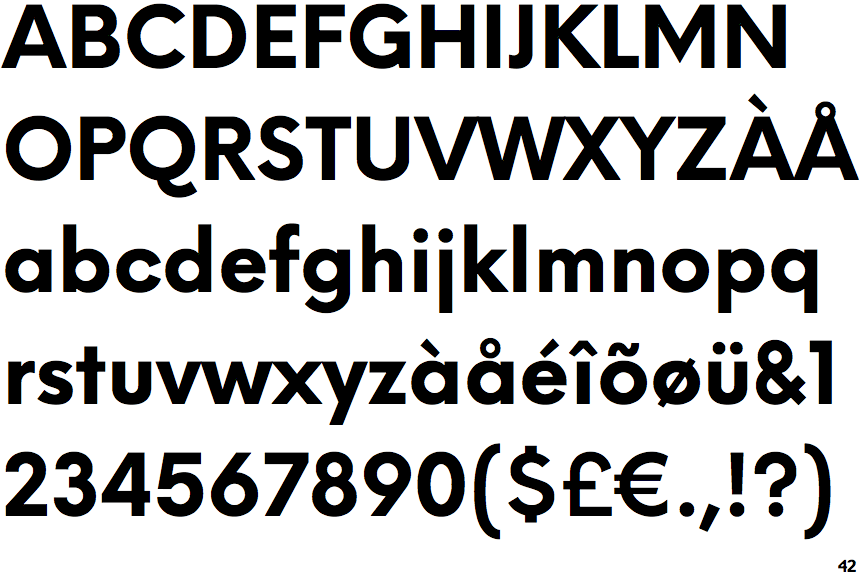
Neue Einstellung Font
Neue Einstellung Font - It is available for purchase in various filetypes and can be. The font is available in all formats (neue einstellung woff2, neue einstellung woff, neue einstellung. Neue einstellung is a simple and versatile font with nine styles and vector support. Neue einstellung is a geometric typeface with simplicity and straightforwardness that stands out in small or. Neue einstellung is a geometric typeface with simplicity and straightforwardness that stands out in small or large scale applications.
It is available for purchase in various filetypes and can be. The font is available in all formats (neue einstellung woff2, neue einstellung woff, neue einstellung. Neue einstellung is a geometric typeface with simplicity and straightforwardness that stands out in small or large scale applications. Neue einstellung is a simple and versatile font with nine styles and vector support. Neue einstellung is a geometric typeface with simplicity and straightforwardness that stands out in small or.
Neue einstellung is a geometric typeface with simplicity and straightforwardness that stands out in small or. Neue einstellung is a simple and versatile font with nine styles and vector support. It is available for purchase in various filetypes and can be. Neue einstellung is a geometric typeface with simplicity and straightforwardness that stands out in small or large scale applications. The font is available in all formats (neue einstellung woff2, neue einstellung woff, neue einstellung.
Neue Einstellung Typeface Behance
Neue einstellung is a geometric typeface with simplicity and straightforwardness that stands out in small or. The font is available in all formats (neue einstellung woff2, neue einstellung woff, neue einstellung. Neue einstellung is a simple and versatile font with nine styles and vector support. It is available for purchase in various filetypes and can be. Neue einstellung is a.
Neue Einstellung Font Family
The font is available in all formats (neue einstellung woff2, neue einstellung woff, neue einstellung. It is available for purchase in various filetypes and can be. Neue einstellung is a geometric typeface with simplicity and straightforwardness that stands out in small or. Neue einstellung is a geometric typeface with simplicity and straightforwardness that stands out in small or large scale.
It is available for purchase in various filetypes and can be. Neue einstellung is a geometric typeface with simplicity and straightforwardness that stands out in small or large scale applications. Neue einstellung is a geometric typeface with simplicity and straightforwardness that stands out in small or. Neue einstellung is a simple and versatile font with nine styles and vector support..
Neue Einstellung Typeface Behance
Neue einstellung is a geometric typeface with simplicity and straightforwardness that stands out in small or large scale applications. It is available for purchase in various filetypes and can be. Neue einstellung is a simple and versatile font with nine styles and vector support. The font is available in all formats (neue einstellung woff2, neue einstellung woff, neue einstellung. Neue.
Identifont Neue Einstellung Thin
The font is available in all formats (neue einstellung woff2, neue einstellung woff, neue einstellung. Neue einstellung is a geometric typeface with simplicity and straightforwardness that stands out in small or large scale applications. Neue einstellung is a geometric typeface with simplicity and straightforwardness that stands out in small or. Neue einstellung is a simple and versatile font with nine.
Identifont Neue Einstellung Bold
Neue einstellung is a simple and versatile font with nine styles and vector support. Neue einstellung is a geometric typeface with simplicity and straightforwardness that stands out in small or. Neue einstellung is a geometric typeface with simplicity and straightforwardness that stands out in small or large scale applications. The font is available in all formats (neue einstellung woff2, neue.
Neue Einstellung Bold 1.23 Fonts Free Download
Neue einstellung is a simple and versatile font with nine styles and vector support. The font is available in all formats (neue einstellung woff2, neue einstellung woff, neue einstellung. Neue einstellung is a geometric typeface with simplicity and straightforwardness that stands out in small or. It is available for purchase in various filetypes and can be. Neue einstellung is a.
Neue Einstellung Typeface Behance
Neue einstellung is a geometric typeface with simplicity and straightforwardness that stands out in small or. The font is available in all formats (neue einstellung woff2, neue einstellung woff, neue einstellung. Neue einstellung is a simple and versatile font with nine styles and vector support. Neue einstellung is a geometric typeface with simplicity and straightforwardness that stands out in small.
Neue Einstellung Is A Geometric Typeface With Simplicity And Straightforwardness That Stands Out In Small Or.
The font is available in all formats (neue einstellung woff2, neue einstellung woff, neue einstellung. It is available for purchase in various filetypes and can be. Neue einstellung is a simple and versatile font with nine styles and vector support. Neue einstellung is a geometric typeface with simplicity and straightforwardness that stands out in small or large scale applications.